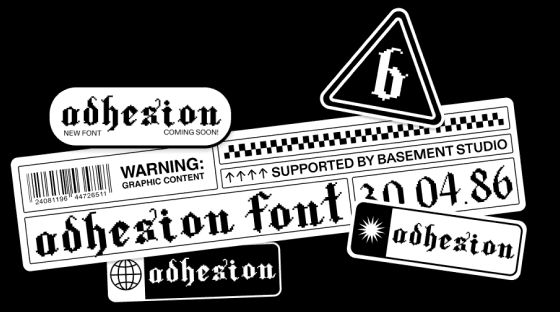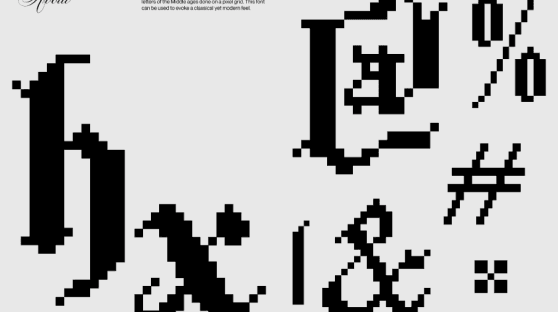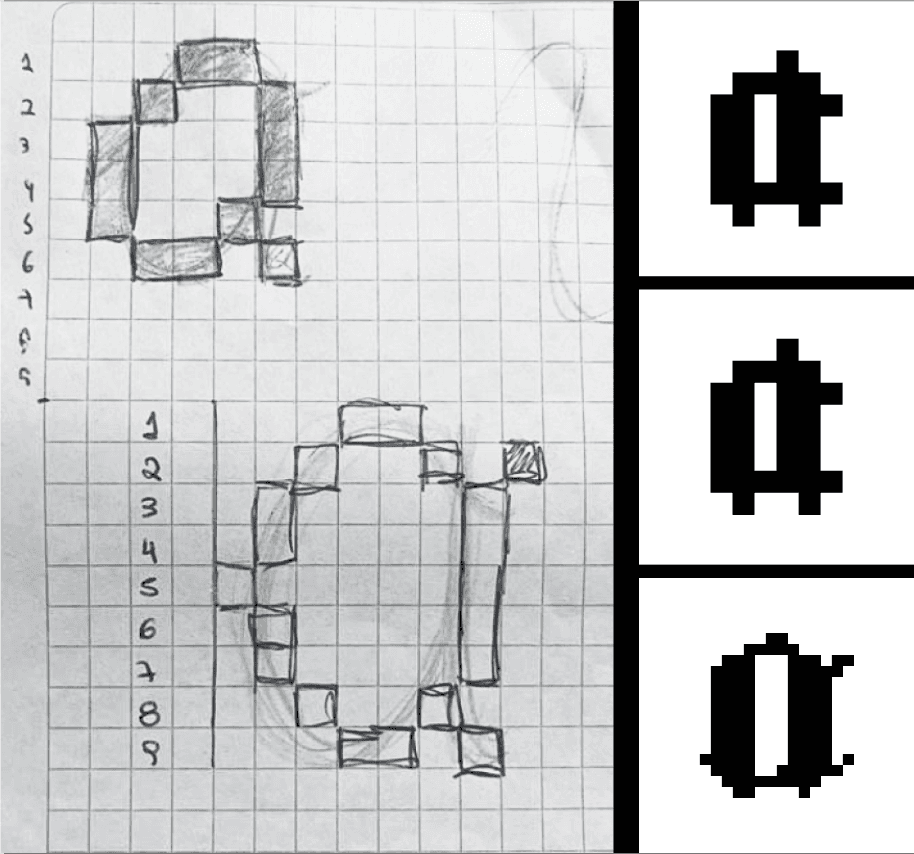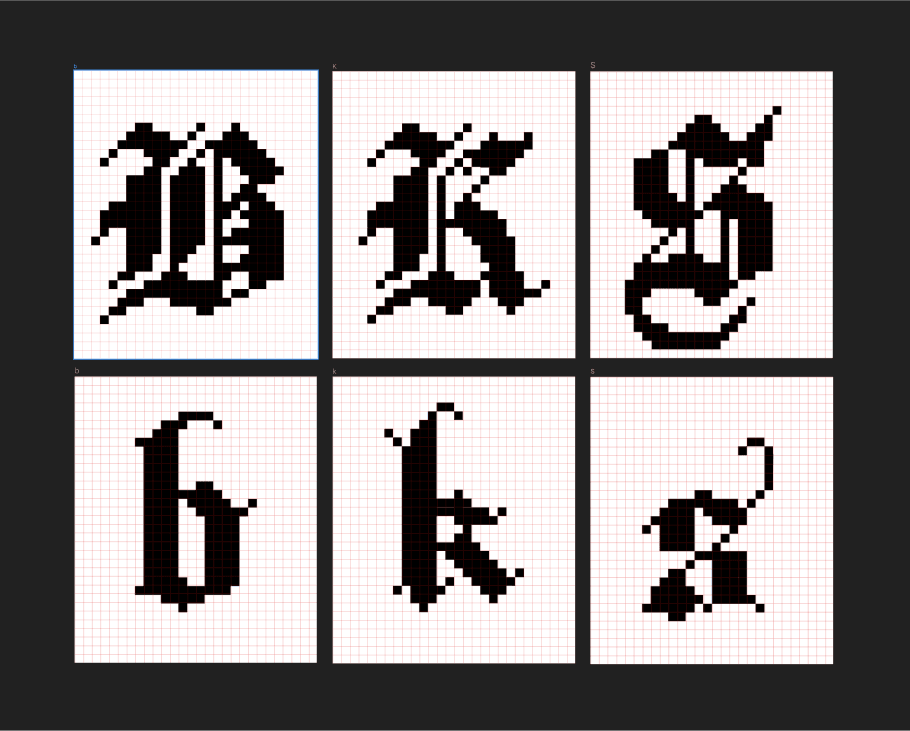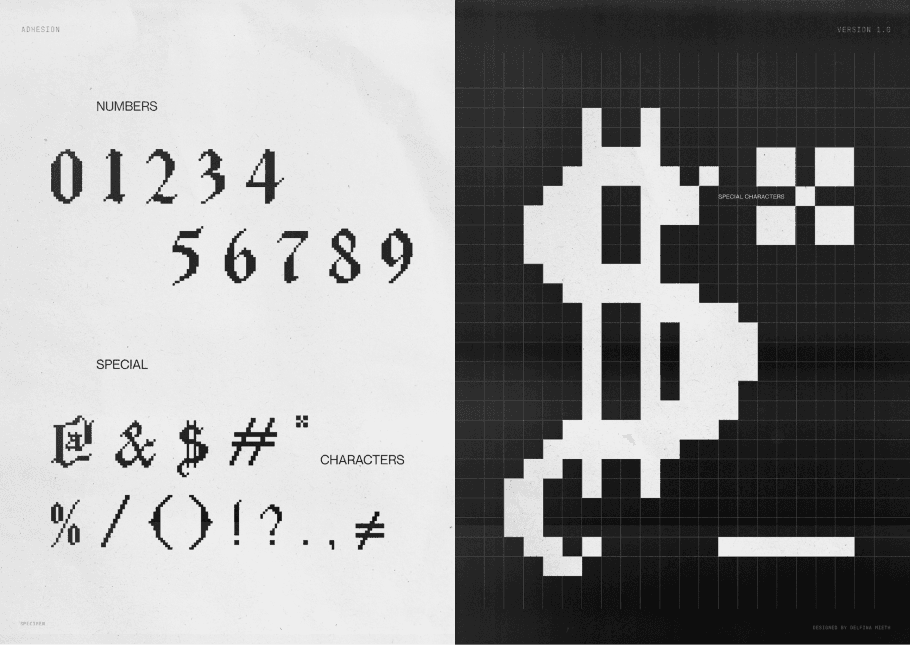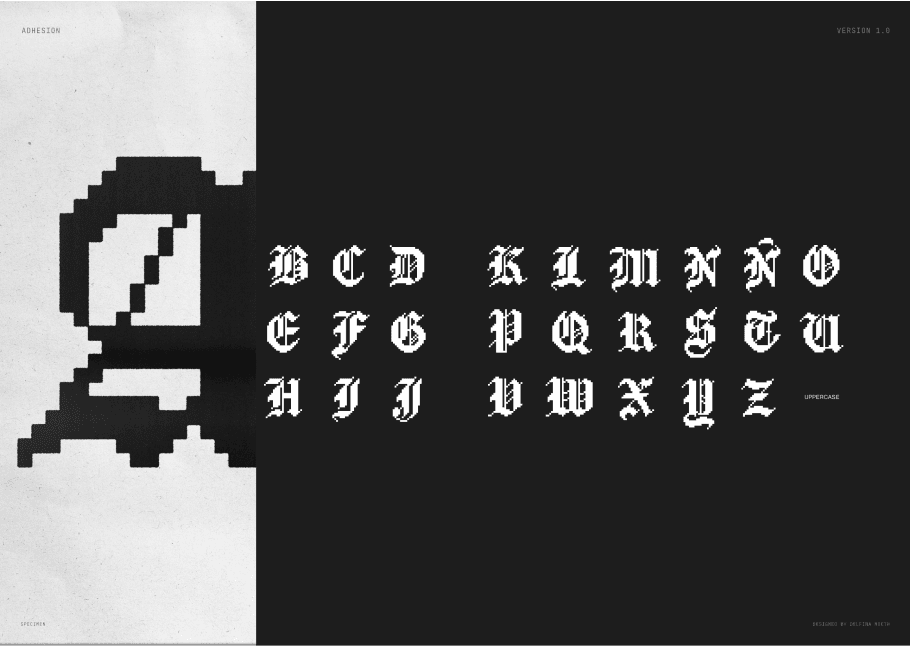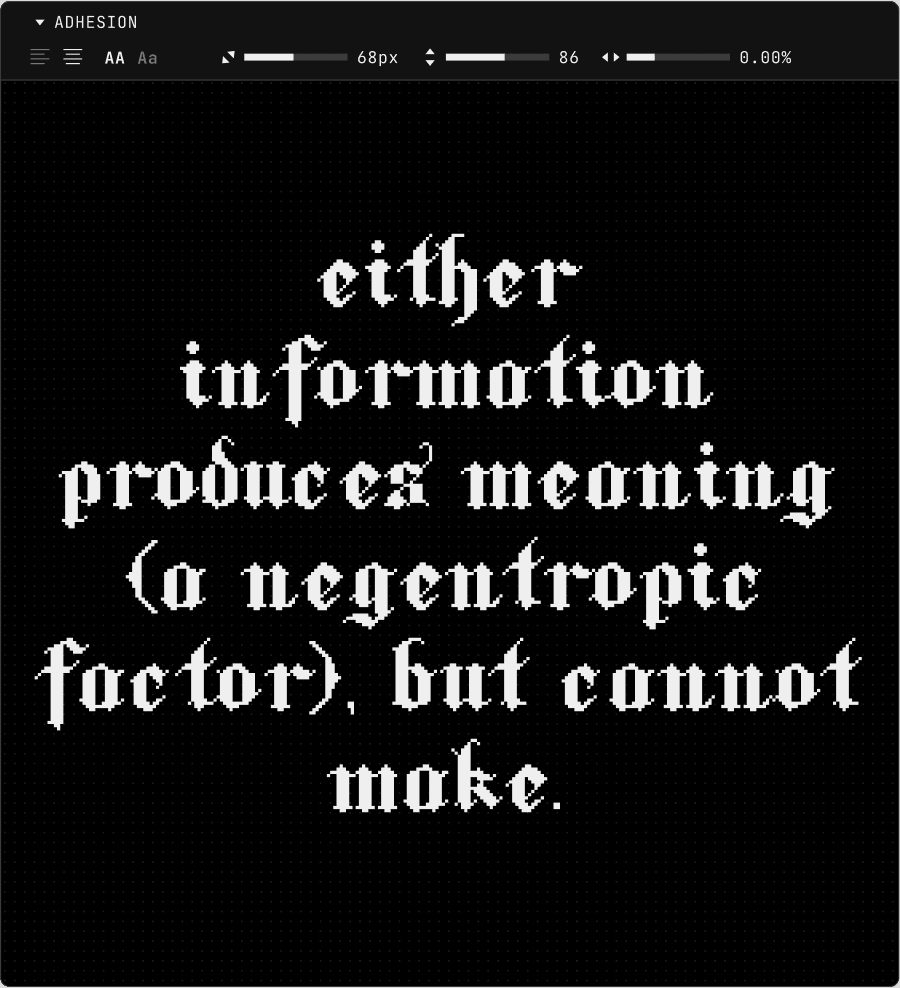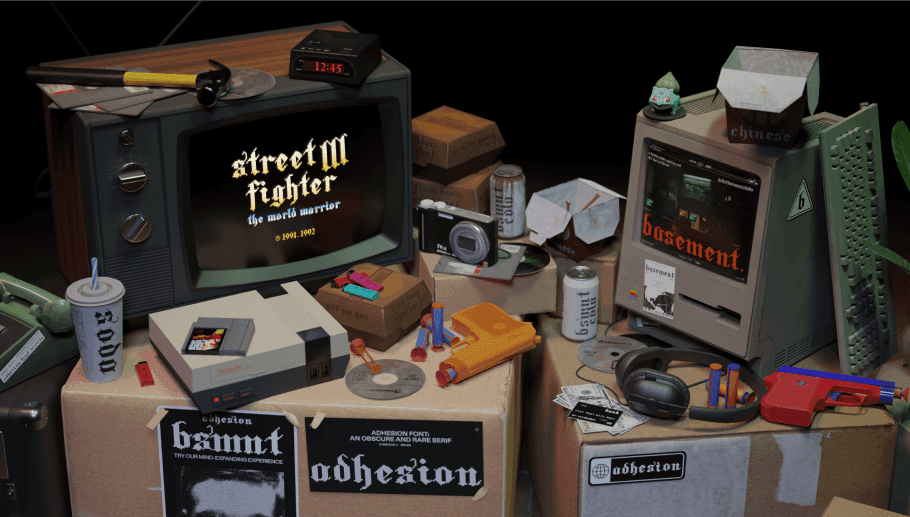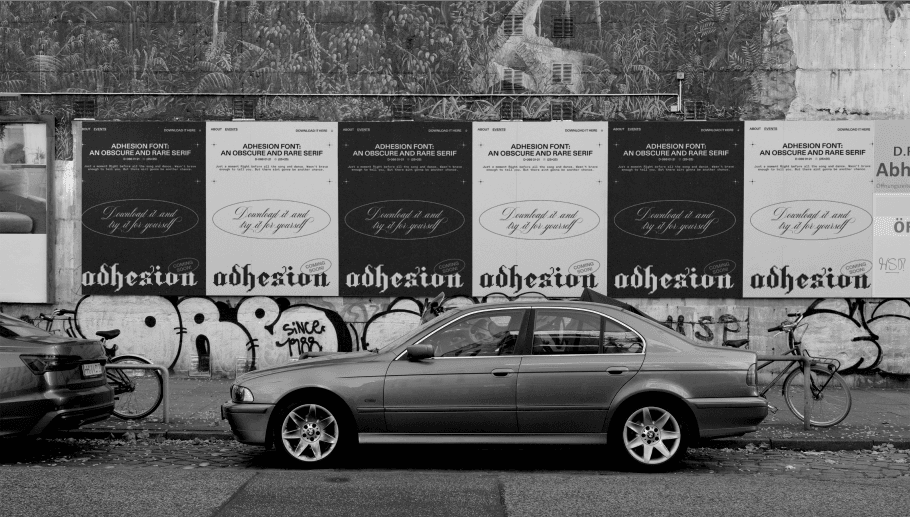
Nostalgia. The 90s. Cool typefaces. Retro games. Oh! You guessed it right. We are at basement and here we have fun and grow by experimenting a lot. Let’s talk about fonts!
In our design squad, we're all about weekly challenges to spice things up and level up our skills. Last year, the idea of experimenting with making a cool typeface hit us, and the whole team was on board. I was excited. Diving into the world of typography for the first time was bound to be a wild learning experience. If you're looking for this venture, I'm here to share my process. Hint: display and modular fonts are the way to go. Ready for the making of Adhesion?
Thinking in squares
So, the game plan was to cook up a modular typeface. That means working on the reticular modulation of spaces, which allows for optimizing time in the completion of any construction, task, or project. Since these fonts are like LEGO blocks, you can break them down, rearrange them, and repurpose them for all sorts of creative gigs.
To kick off the journey, I scoured for inspo and references that spoke to me. I threw together a mood board that vibed with gothic and pixelated fonts, giving off a mix of old-school feels and modern vibes. It felt like I could craft something intriguing without plunging into the advanced theories demanded by heavyweight fonts.
So, I opted for simplicity, starting with squares as the letters' building blocks and thinking about combining old black letter references and pixel fonts. Given that the traditional style was crafted by hand using calligraphic techniques, translating those organic forms into a meticulous grid of perfect squares posed a delightful challenge.
Setting the grid: A font with a resolution
Next up: creating a grid. I started sketching it out by hand, channeling old-school blackletter styles. But soon, I ditched the paper for digital because, let's be real, copy-paste is a game-changer for tweaking things.
Adhesion draft
Lettering in blackletter typefaces has a highly stylized appearance rooted in medieval, classic calligraphy. The letterforms are often dense with flourishing ascenders and caps. While some characters were relatively easy, getting those organic curves with pixels threw me for a loop. After some tests, I realized that switching from a small pixel grid to a beefier 30x30 was a game changer. More pixels, more control, more finesse.
Character's grid
The challenging parts
Numbers and special characters posed a real head-scratcher since I lacked handy references. However, this forced me to dive deep into the intricacies, conducting trials and errors until I finally hit a sweet spot.
Numbers type specimen
On the flip side, lowercase characters seemed deceptively straightforward. Yet, once I had them locked and loaded, the uppercase counterparts breezed in effortlessly. I believe I achieved a better outcome with those capital letters.
Adhesion capitals specimen
However, the ultimate hurdle? Putting the thing to the test. When I started composing words, I began noticing details and misalignments everywhere. Seeing it in action on the system highlighted issues that couldn't be addressed one by one.
Test box on foundry website
Having fun: creating a universe for your font
Now, here's where my inner nostalgia buff took the lead. For the website graphics, I drew inspiration from old-school rave flyers and 90s posters – the golden age of raves. Think black and white, photocopies, and script fonts. We even teamed up with the 3D wizards to sprinkle some retro magic on the typography, throwing in 90s objects and creating a whole environment to share the font in use with the world.
Adhesion in use
Oh, almost slipped my mind! While I was busy building the font, I also had to come up with a name. After some pondering (not too serious, I promise), I landed on Adhesion. Why? Well, besides sounding cool, it's a nod to one of the go-to words for font testing. It perfectly sums up a bunch of shapes that let folks quickly catch the vibe of the typeface in the making.
Adhesion posters
Conclusions
This ride made me appreciate typography on a whole new level. Now, when I spot those font super-families, I can peek behind the curtain and get why they're built the way they are.
Even the most straightforward font needs to keep its cool. It's like diving into a complex design system where everything's interconnected. This whole gig was a throwback to the basics, a deep dive into the design principles I once nerded out about in my design degree.
ADhesion in use
The best part is that typefaces tend to be an ongoing work in progress. I know there's some fine-tuning to do—kerning, and a few characters acting up. But hey, it's a journey, not a destination. So, keep tuned for upcoming versions of this baby!